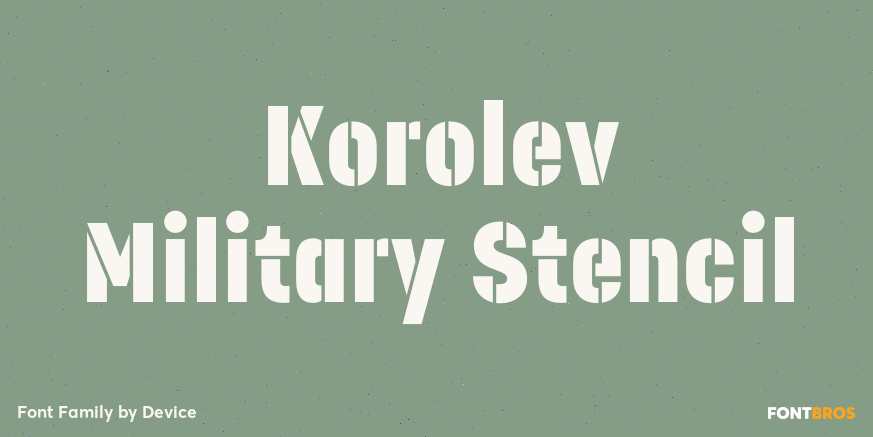
HomeFont BrosSans SerifKorolev Military Stencil Sans Serif Korolev Military Stencil FacebookXPinterestWhatsApp 1 of 1 About Korolev Military Stencil A stencil variant of last year\’s bestselling Device font family, Korolev. Named after Sergei Korolev, father of Soviet astronautics, and based on signs from the Red Army parade of 1932.  DOWNLOAD ON FONT BROSThis font is sold and delivered by Font Bros. Font Canyon may earn a commission if you buy through this link. People also explored Mikayla Hansamu Font Floxy Font Selena Font Starlight Font Summer Vibes Font Halokia Font Lips Font Der Weiner Stentzel Peinbolf Font 385 0 TagsKorolev Military Stencil Font Previous articleMoonblossomNext articleTeeshirt LEAVE A REPLY Cancel reply Comment: Please enter your comment! Name:* Please enter your name here Email:* You have entered an incorrect email address! Please enter your email address here Website: Save my name, email, and website in this browser for the next time I comment. Personal Use Free Cataleya Personal Use Free Read more about this font Wondery Personal Use Free Read more about this font Baveuse Personal Use Free Read more about this font Shelly Personal Use Free Read more about this font BLOG Fonts That Capture the Spirit of New York City New York City is more than just a place—it’s an experience, a rhythm, a visual language... Elegant Wedding Invitation Fonts – Handwritten & Script Fonts Free vs Paid Fonts: Why Investing in Premium Fonts Is Worth It 5 Fonts That Will Dominate Design Trends in 2026